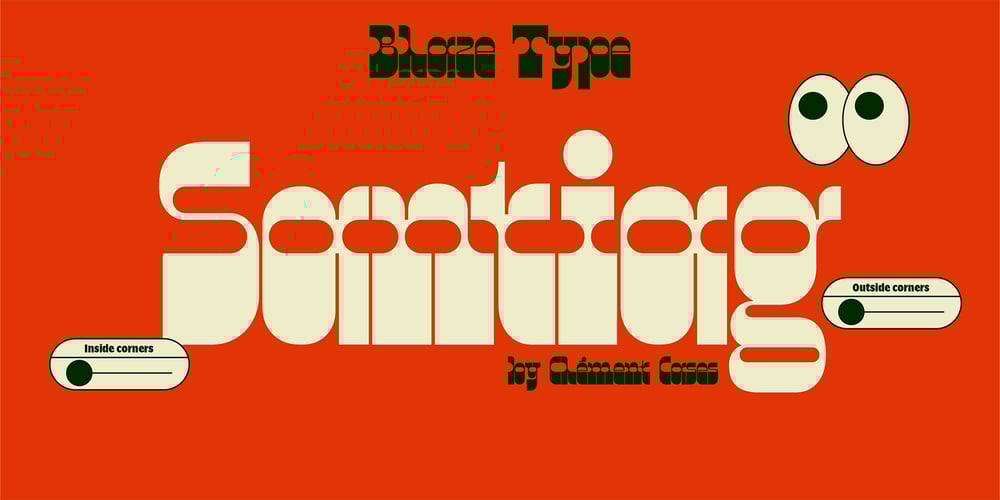
Santiag Font Family was designed by Clement Cases and published by Blaze Type. Santiag contains 8 styles and family package options. Santiag is a contemporary western typeface, inspired by the reversal of stress in the character strokes of the mythic Italian typefaces from the 19th century. This typeface is a modern take on the genre, attempting to incorporate geometric shapes into the counter forms. Featuring bold shapes that relate to serifs, the half-circle is key to creating the rhythm and distinct character of the typeface. The height of the base is adjustable, giving the overall typography a cartoonish feel.The font is available in 8 styles, with square angles appearing in the counter forms as well as on the exteriors of the letters, offering endless possibilities.